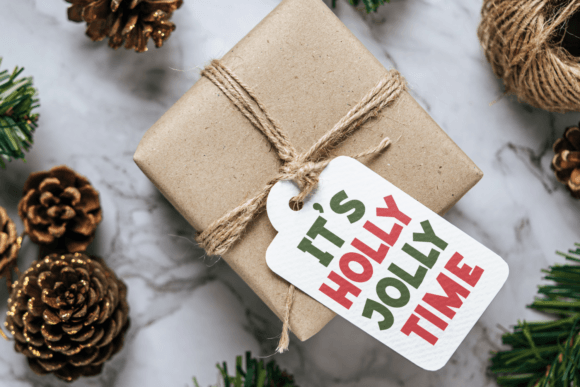
Holy Boldy Font
Holy Boldy is a chubby and modern display font, perfect for projects that need to stand out! Use it for book covers, magazines, posters, advertisements, or anything like that.